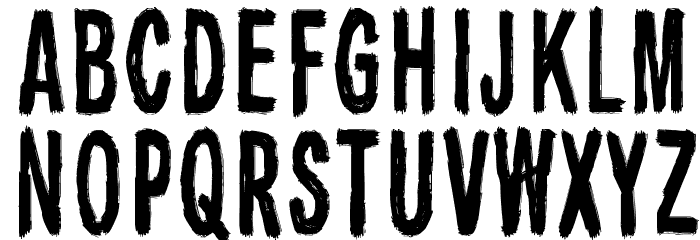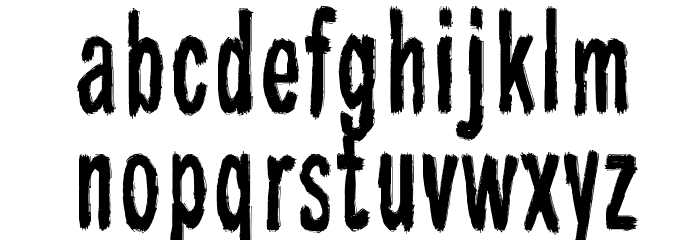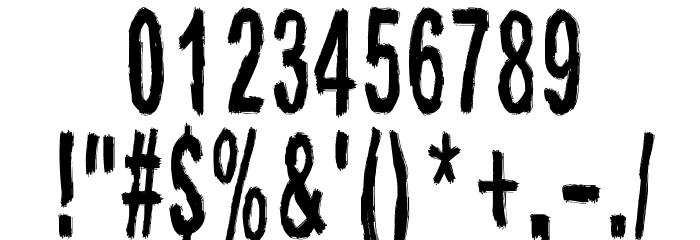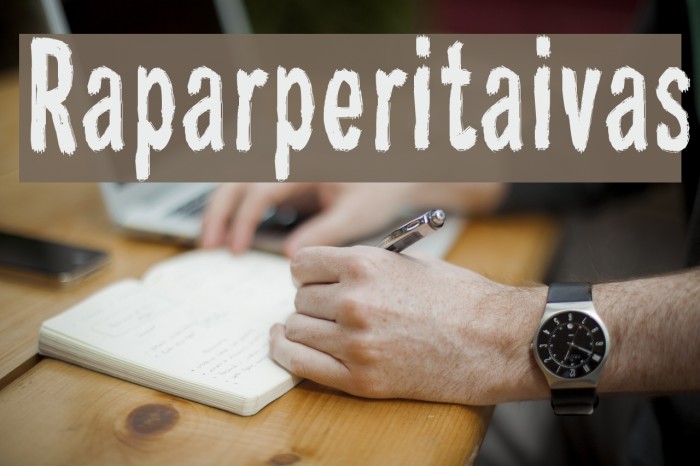
Raparperitaivas Font
This font features a bold, hand-painted style with a rough, textured appearance. The characters are slightly irregular, giving it a dynamic and energetic feel. The uppercase and lowercase letters maintain a consistent height, while the numbers and special characters follow the same stylistic approach. The strokes are thick and uneven, adding to the font's handcrafted look. This font is ideal for projects that require a bold and artistic touch, such as posters, album covers, or creative branding.
A bold, hand-painted font with a rough, textured style.
- Proposed Projects: Posters, album covers, creative branding, artistic projects.
- Overall Style: Artistic, Handcrafted